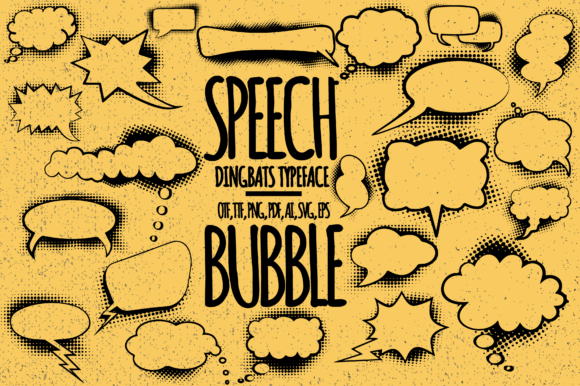
Step into the world of captivating communication with the one-of-a-kind, eye-catching Sprachblasen font. Crafted by the masterminds at Minimalistart studio, this captivating font family is the answer to your search for a font that breathes life into your creative ideas.
As a member of the noted and esteemed family of 'dingbat' typefaces, Sprachblasen stands shoulder to shoulder with other great names of the digital age. But its unique identity lies in the world of speech, thought, and expression - a world it brings to your fingertips with effortless ease.
For those of you who live and create in the whimsical world of design, illustration, and art, Sprachblasen is your new secret superpower. With this font family in your arsenal, you can make your dream of standout speech and thought-balloons a reality. In a few simple steps, you can give voice to your characters, making them almost jump off the page.
Are you working on a creative project that's heavy on text? Animated storytelling? Are you a teacher or an educator who's always in need of creative, out-of-the-box solutions to make learning fun and impactful? If the answer is yes, you need Sprachblasen. Its carefully designed speech-balloon design options are your go-to solution for quick and creative visual impact.
Speachblasen is much, much more than just another font family. It is an extension of your creative expression, ready to help you weave your stories in a way that's bound to leave the reader enchanted.